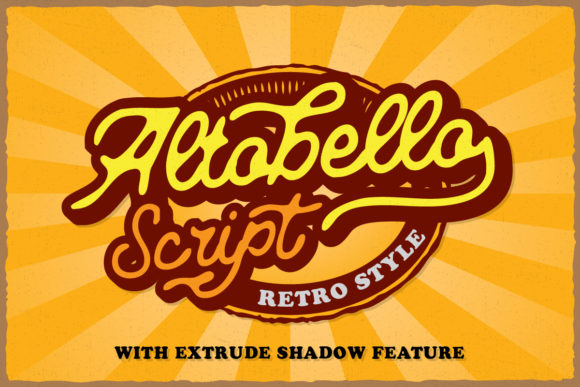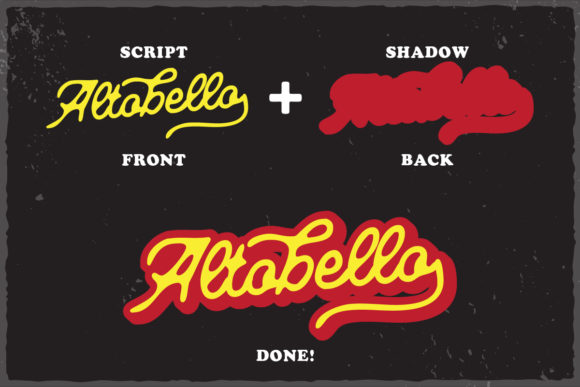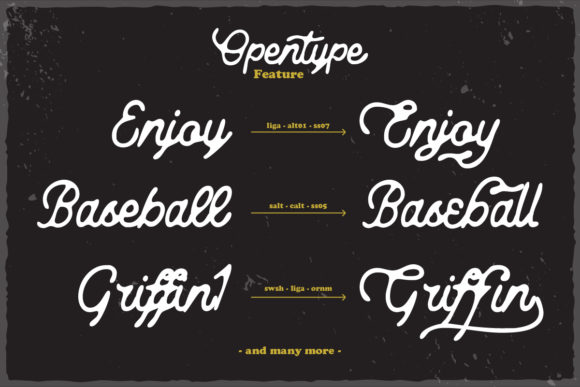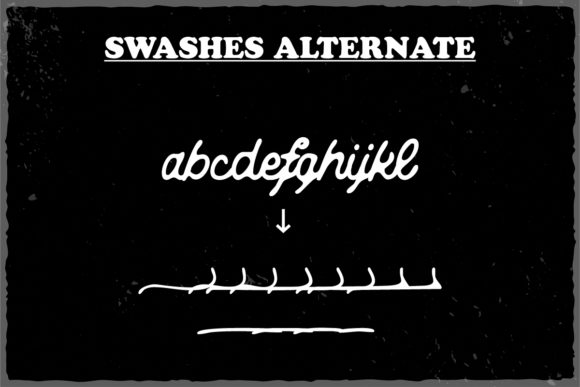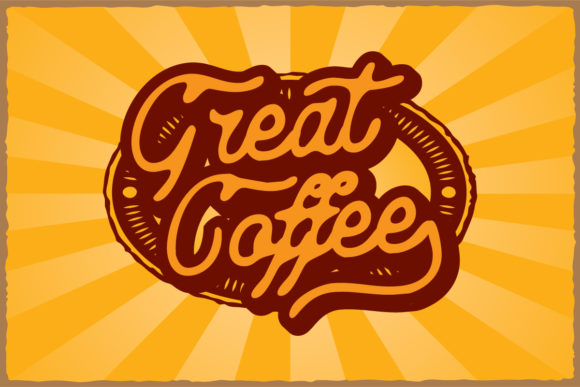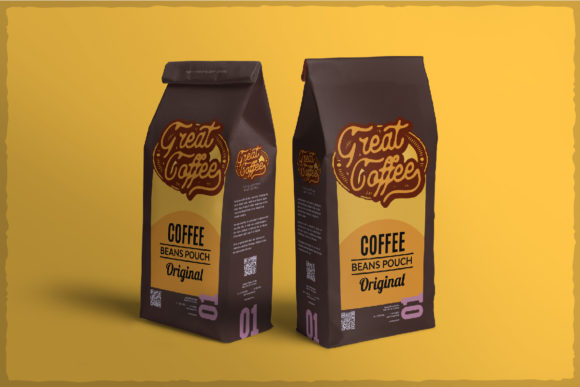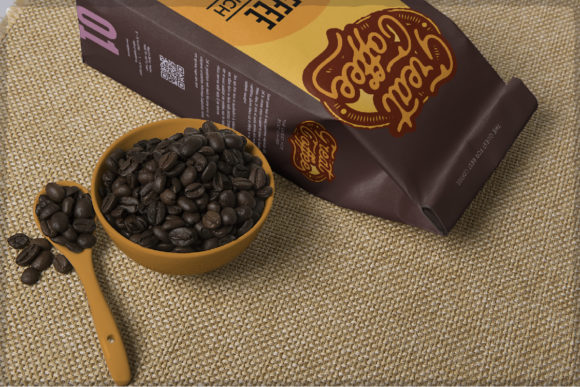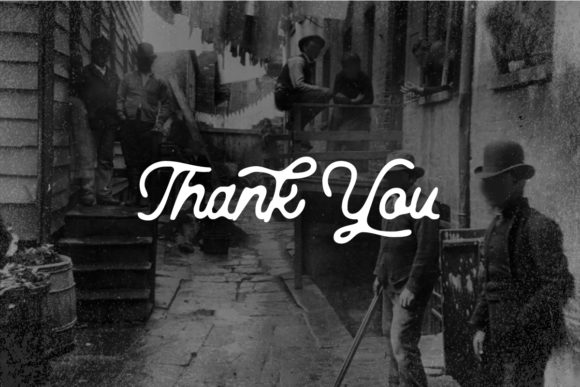
Altobello Font
About Altobello Font
Altobello Script is retro script with a bold shadow feature! Get inspired by its bold swashes, and elevate any design project with its authentic charm!